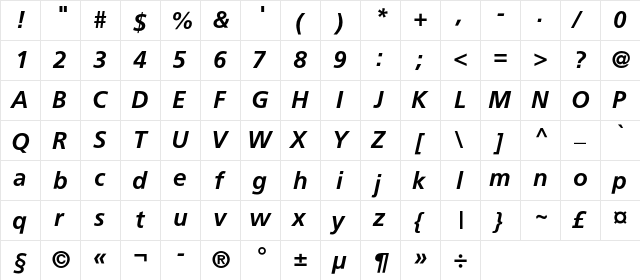
AGForeignerMediumC Italic
Design Context for AGForeignerMediumC Typeface
AGForeignerMediumC offers clean, dependable letterforms without strong stylistic allegiance, making it a practical choice for designers who need flexibility. The dynamic lean of this cut emphasises speed and emphasis in any layout.
Pro Tip: Use AGForeignerMediumC for emphasis, pull quotes, and subheadings where its slanted energy can add rhythm to the layout.